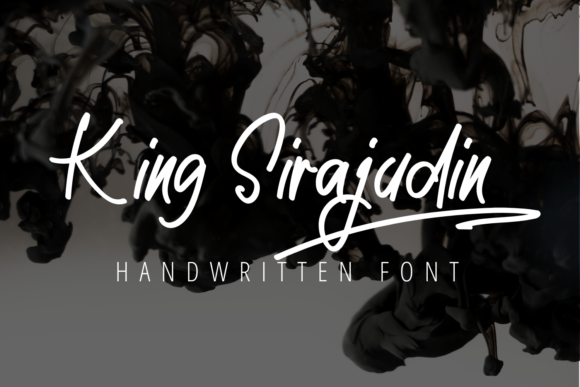
Indulge in the captivating embrace of King Sirajudin, a script font that whispers tales of timeless elegance and enchanting allure.
With each stroke, King Sirajudin weaves a tapestry of emotion, evoking the charm of handwritten notes and the allure of ancient manuscripts. Its meticulously crafted curves and flourishes dance across the page, inviting you to immerse yourself in a world of imagination and creativity.
Whether you seek to craft a breathtaking logo that commands attention or a quote that resonates with profound meaning, King Sirajudin stands as your unwavering companion. Its versatility knows no bounds, making it the perfect choice for branding, packaging, and social media designs.
Experience the enchantment of King Sirajudin today and unleash the true potential of your creative expression. Let its magical touch transform your designs into captivating masterpieces that captivate and inspire.